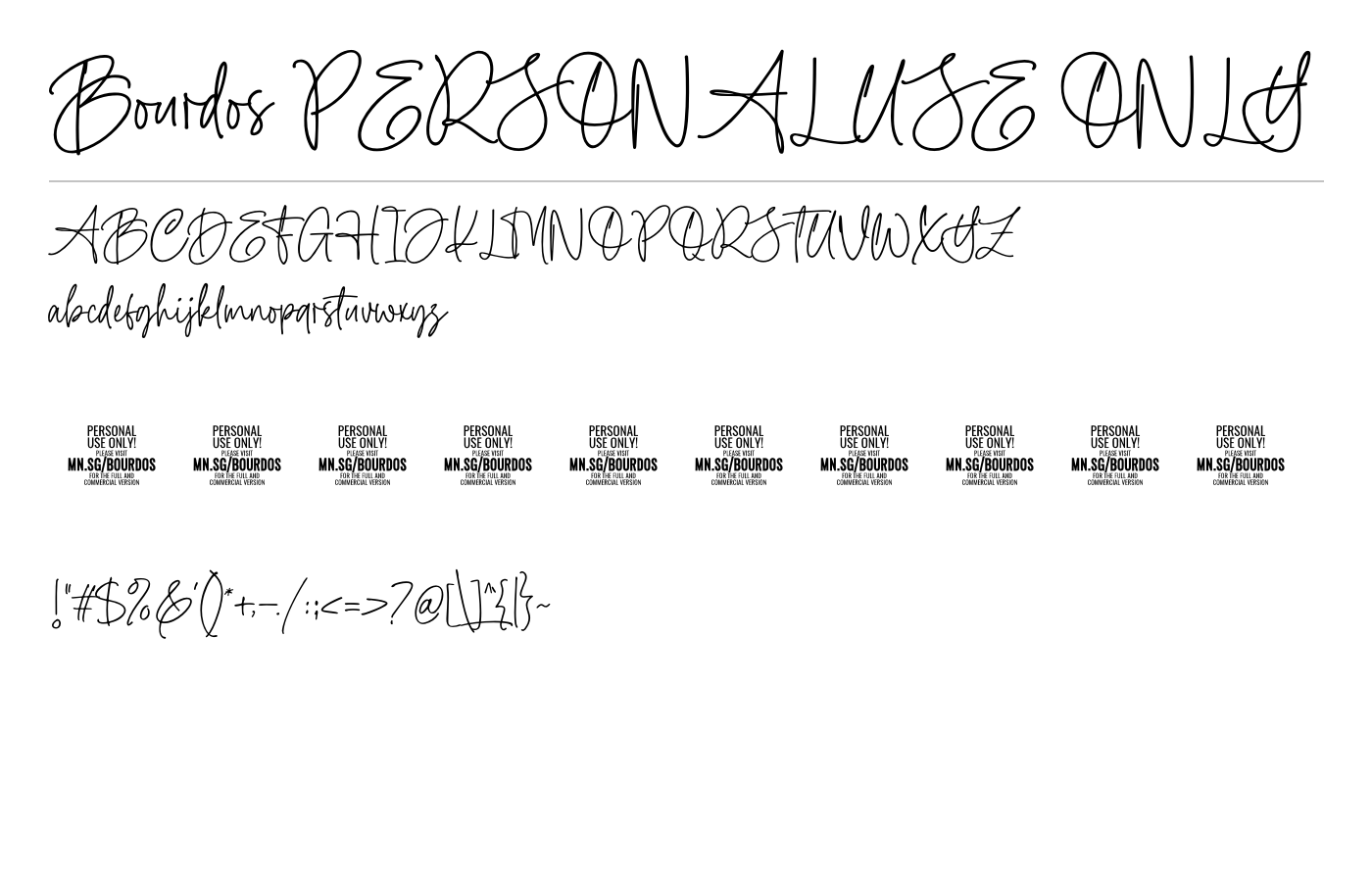
Bourdos PERSONAL USE ONLY is a playful and expressive handwritten font with a tall, slender form and delicate, irregular strokes that give it a lively, personal touch. Its airy, casual style makes it ideal for projects seeking a friendly, creative vibe, such as invitations, branding for artistic or lifestyle products, and informal headlines. This font’s unique, whimsical character adds charm and personality wherever a handwritten, approachable look is desired.
Bourdos PERSONAL USE ONLY Font
About Bourdos PERSONAL USE ONLY Font
| Font family | Bourdos PERSONAL USE ONLY Font |